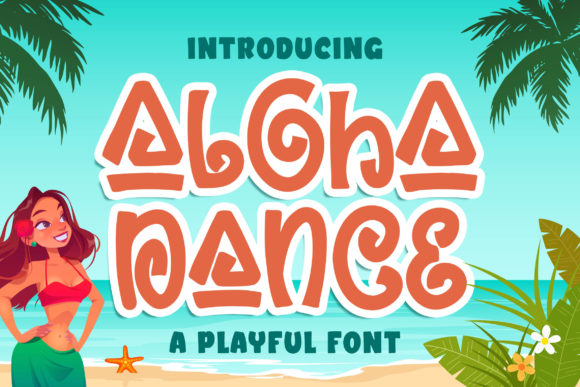
Step into the world of charm and delight with Aloha Dance Font, a captivating display font that will ignite your creativity and make your designs dance with joy. This enchanting font, brought to life by the talented Blankids Studio, is a symphony of style and versatility, perfect for adding a touch of whimsy and playfulness to your digital endeavors.
With its unique and eye-catching letterforms, Aloha Dance Font possesses an irresistible charm that will leave a lasting impression on your audience. Whether you're crafting social media posts, designing eye-catching logos, or creating unforgettable invitations, this font is your perfect companion. Its playful nature lends itself effortlessly to a wide range of projects, making it an invaluable asset to your font library.
Experience the transformative power of Aloha Dance Font as it elevates your designs to new heights. Its playful and whimsical style has the uncanny ability to capture attention and create an emotional connection with your audience. Unleash your creativity and let your imagination soar as you explore the endless possibilities this font offers.